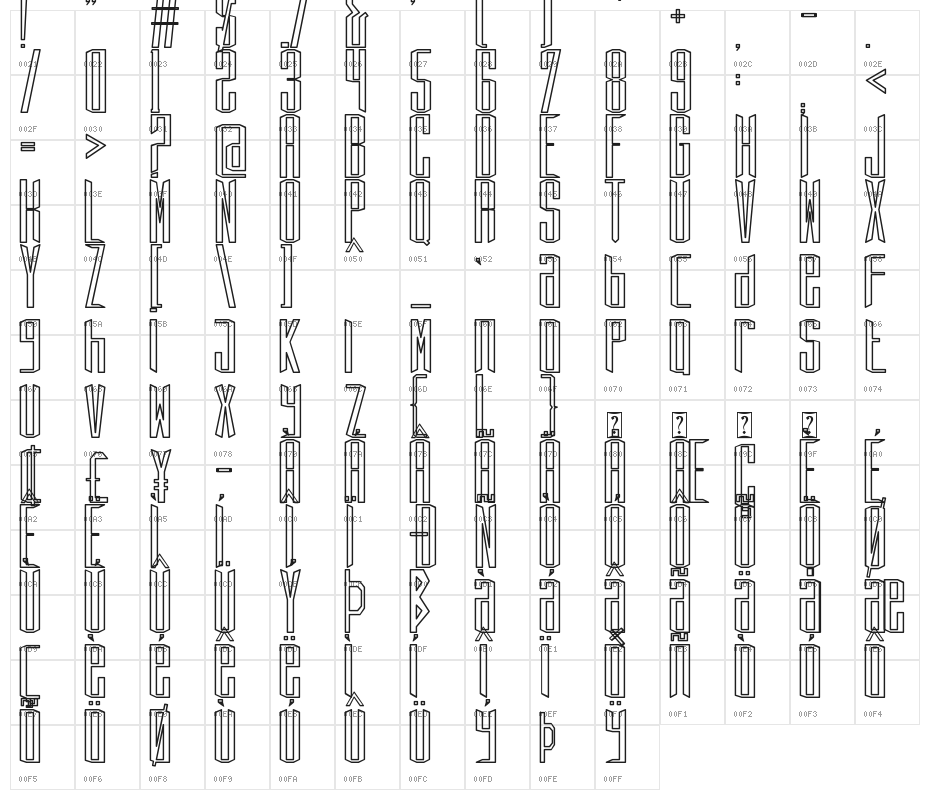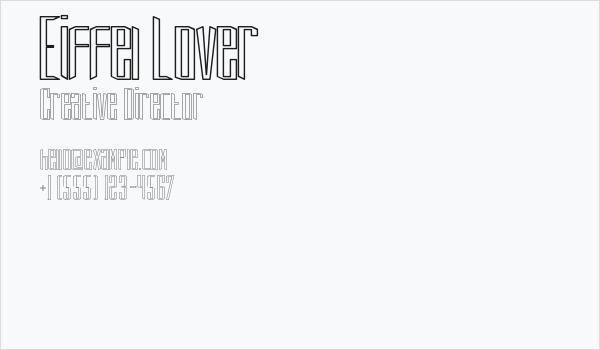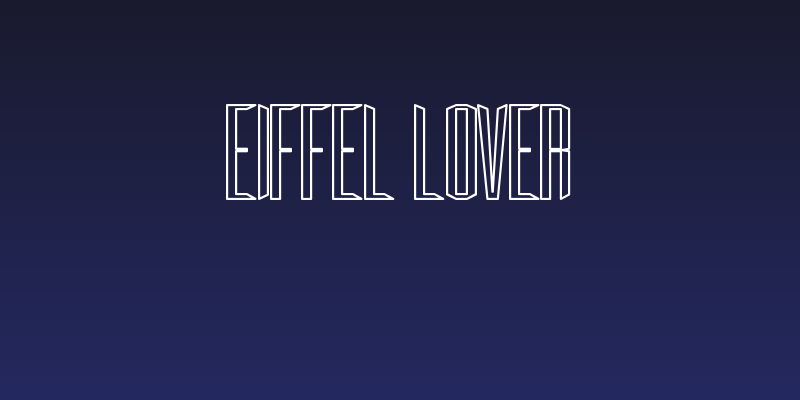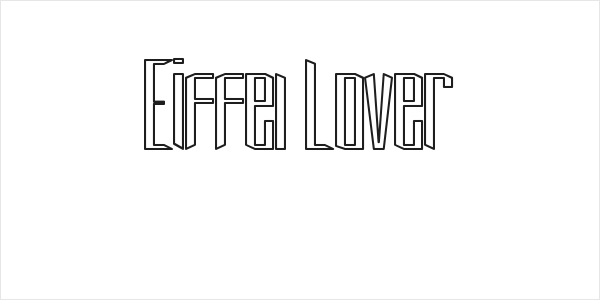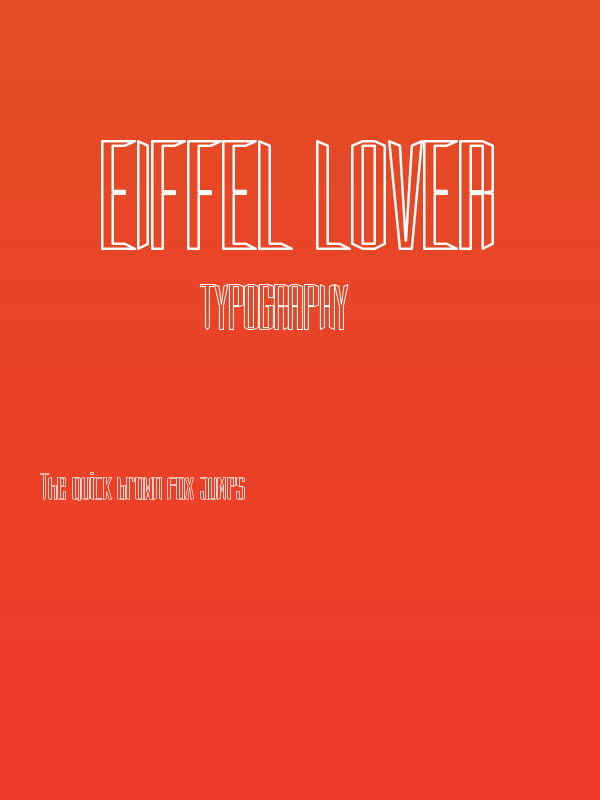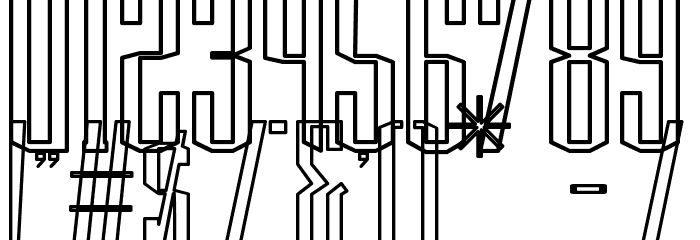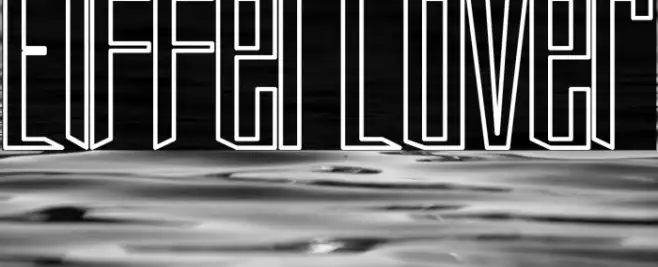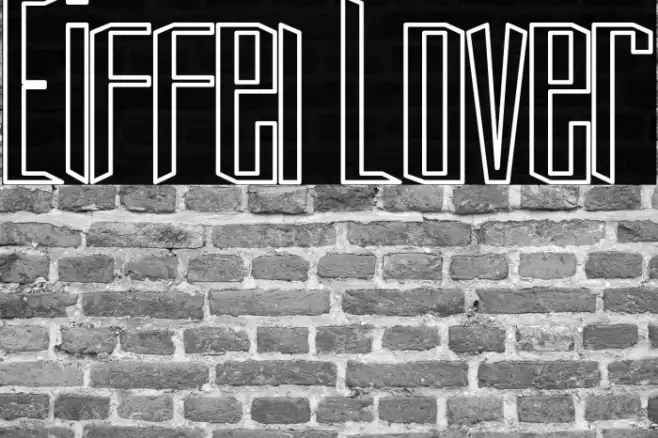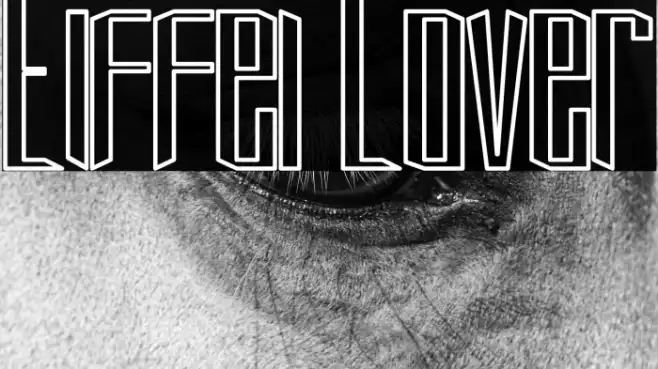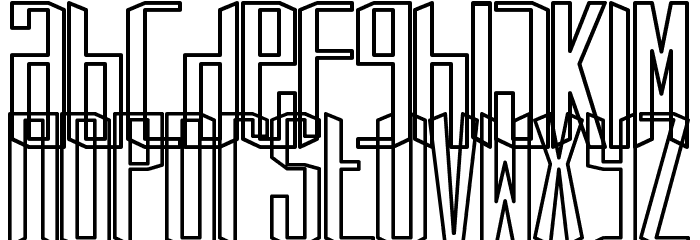
Eiffel Lover Font
Eiffel Lover Description
This font features a highly decorative and intricate design, characterized by its tall, narrow letterforms and elaborate detailing. The uppercase and lowercase letters maintain a consistent height, creating a uniform appearance across the alphabet. The strokes are thin and elongated, giving the font a sophisticated and elegant look. The numerals and special characters are designed to match the overall style, with similar vertical emphasis and ornate elements. This font is ideal for projects that require a touch of elegance and complexity, such as invitations, posters, or branding materials.
| Proposed Projects | Perfect for invitations, posters, branding, and any project needing an elegant touch. |